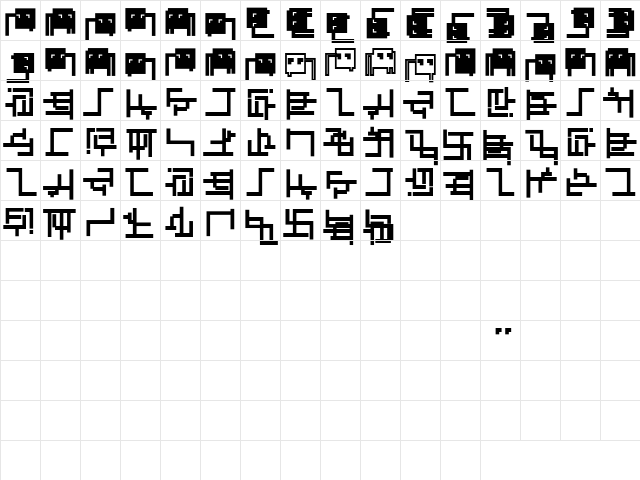
Complete Abstracta Bold glyph index. Displaying only characters natively supported by Abstracta Bold font.
Abstracta is a composed and adaptable typeface that performs quietly and consistently across a wide range of design contexts. Its bold stroke weight gives it real presence on the page.